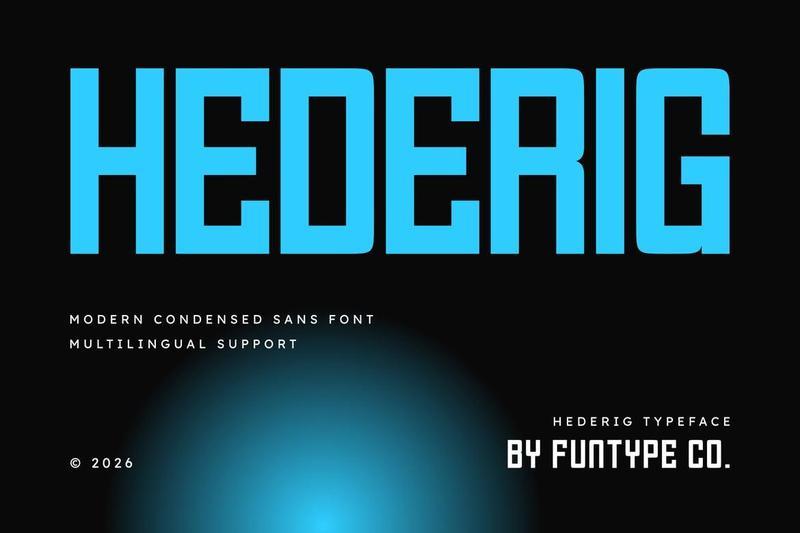
**Hederig Modern Condensed Sans Font**
**Hederig** is a bold, high-impact, and modern condensed sans font, meticulously engineered to bring a commanding structural presence, industrial weight, and premium geometric precision to contemporary display layouts. Built with a solid block profile, compact horizontal tracking, and clean linear cuts, Hederig introduces a professional high-end lifestyle and corporate aesthetic that projects futuristic innovation and visual authority.
This font family is the definitive choice for creative directors, digital publishers, and agency brand designers looking to implement a space-efficient, heavyweight typography identity. Whether you are developing tech enterprise logotypes, modern gaming industry branding, high-end automotive media titles, editorial magazine covers, or prominent digital live-stream headers, Hederig stands out with supreme legibility and structural confidence.
**Main Features:**
– Modern Condensed Sans Design: Optimized with a solid horizontal block profile for dense, space-saving, and high-impact title compositions.
– Robust Geometric Dimensions: Bold linear builds crafted to secure immediate audience attention in publication layouts.
– Multilingual Support: Fully loaded and prepared for cross-platform international marketing campaigns.
– Industrial & Futuristic Aesthetic: Clean strokes with sharp interior corners perfect for advanced tech branding and digital media infrastructure.
**Best Used For:**
High-end tech branding, corporate presentation titles, automotive firm marketing, esports event layouts, modern architectural signage panels, technology infrastructure headers, and large-scale web splash banners.